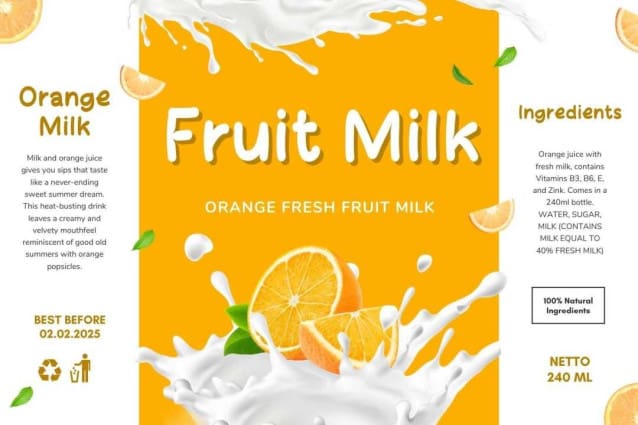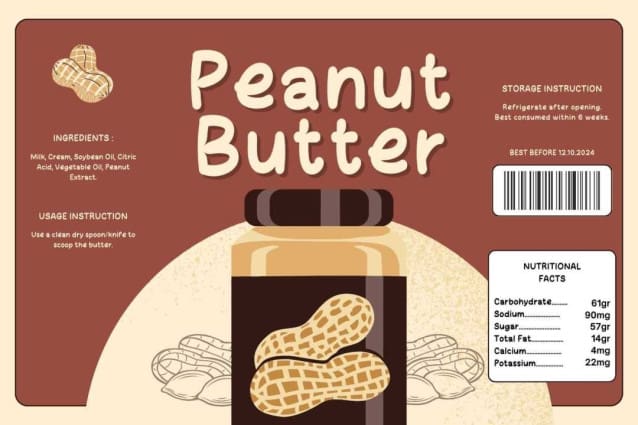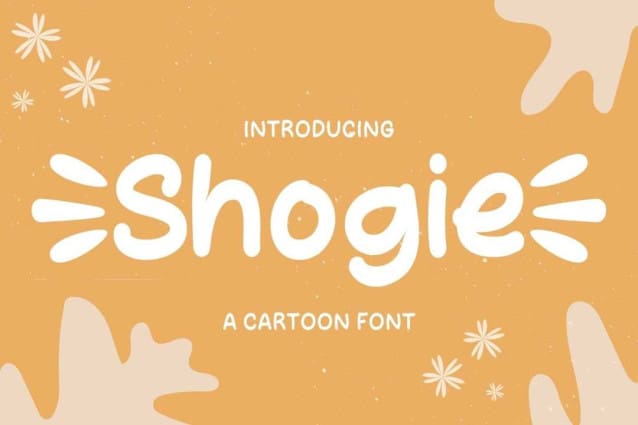
Shogie Display Font
Shogie Display Font, is a chunky, comic, and cartoon display font. With its neat and joyful personality, this font will enhance any project you wish to create!